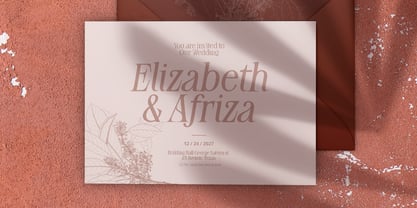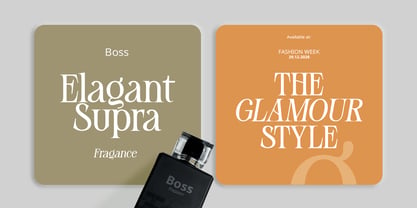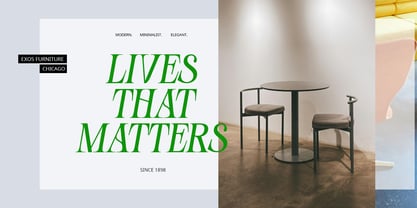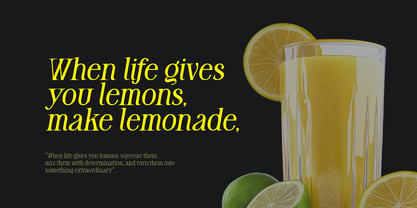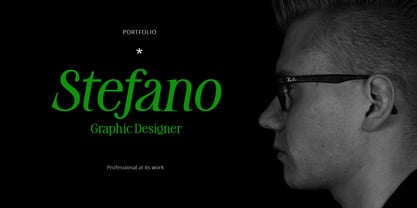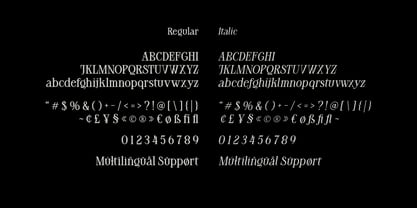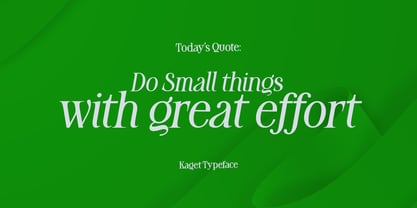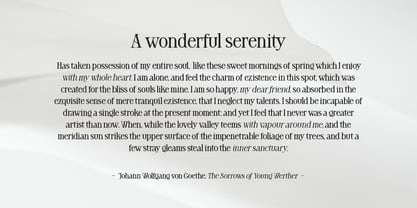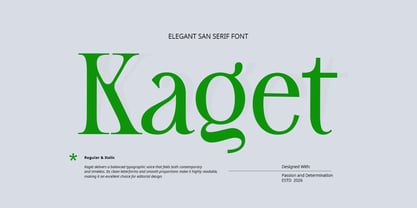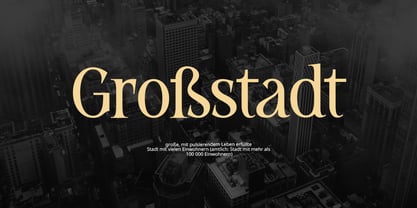
Kaget
by Grontype
The Kaget Font Family was designed by Jarnawi Saja and published by Grontype. Kaget contains 2 styles and family package options. More about this family
Kaget is an elegant modern sans serif font designed with clarity and versatility in mind. Featuring two refined styles—Regular and Italic—Kaget delivers a balanced typographic voice that feels both contemporary and timeless. Its clean letterforms and smooth proportions make it highly readable, making it an excellent choice for editorial design, from striking headlines to comfortable body text. Perfect for magazines, books, quotes, and a wide range of print designs, Kaget brings a sophisticated yet approachable character to any layout. Whether used subtly or as a focal point, Kaget enhances visual storytelling with effortless elegance and modern appeal.
Designers: Jarnawi Saja
Foundry: Grontype